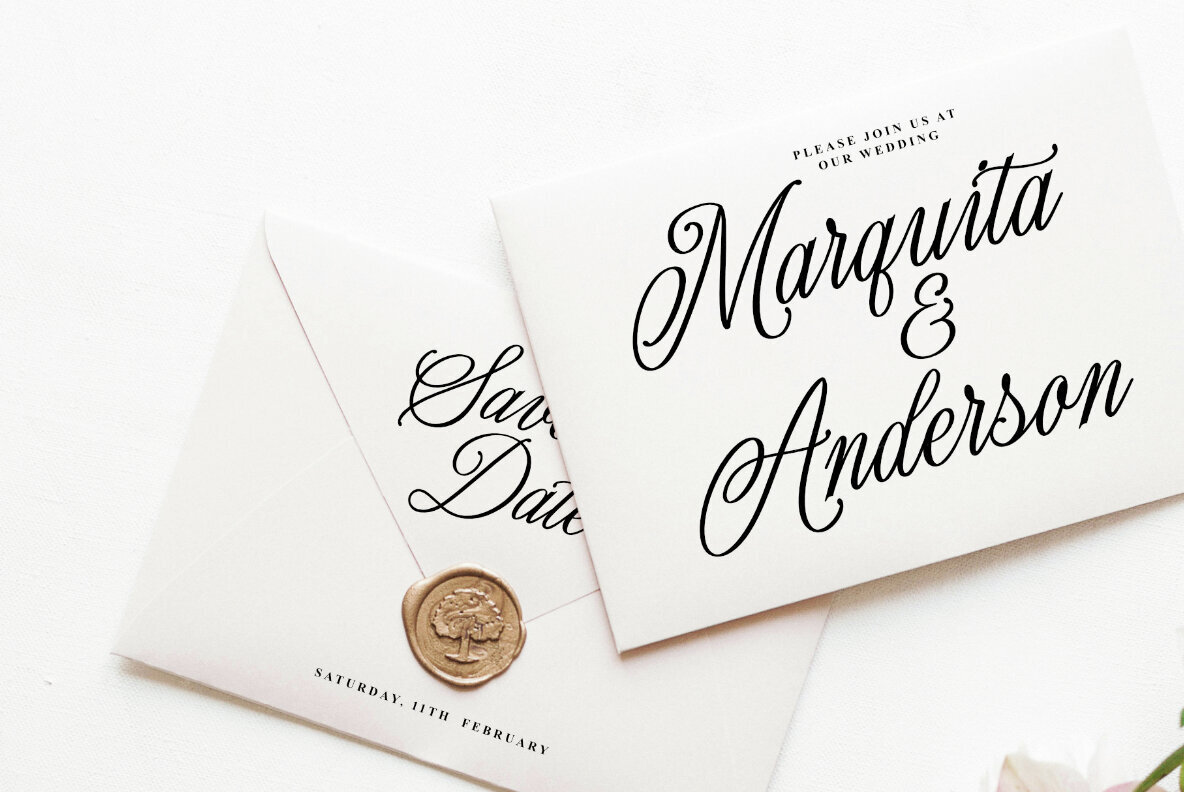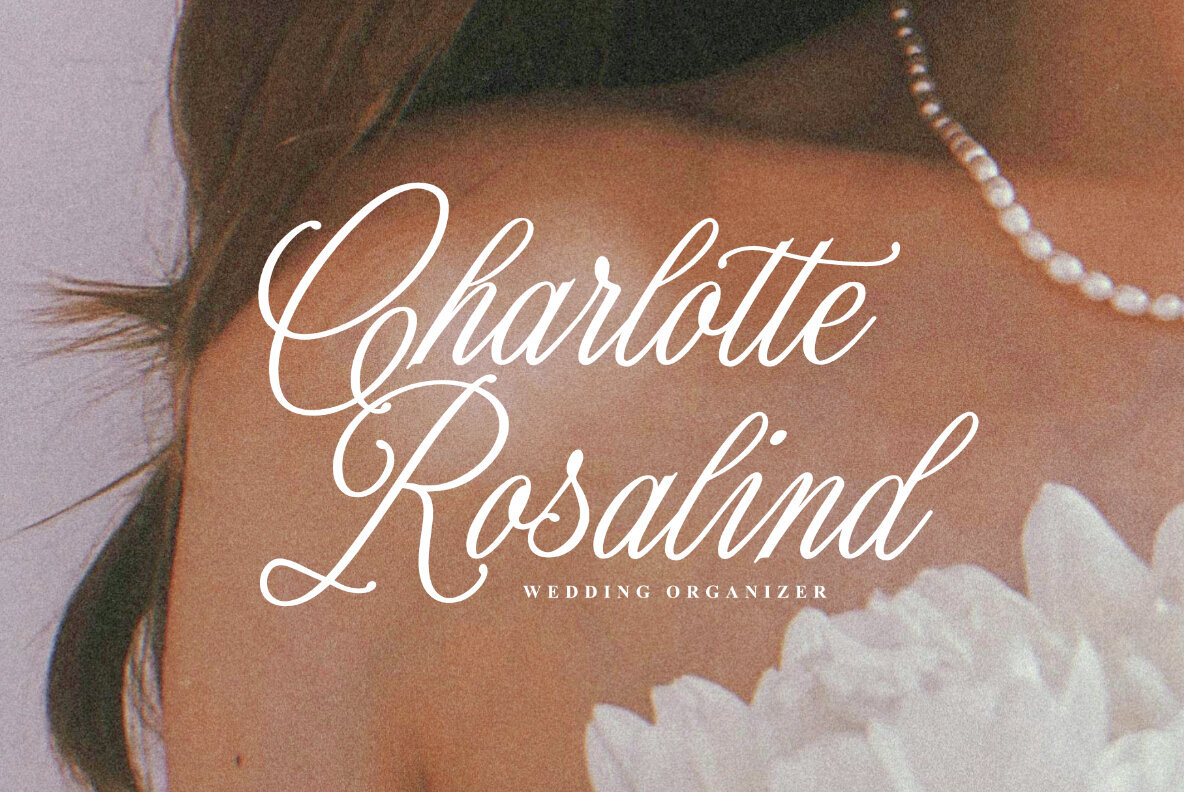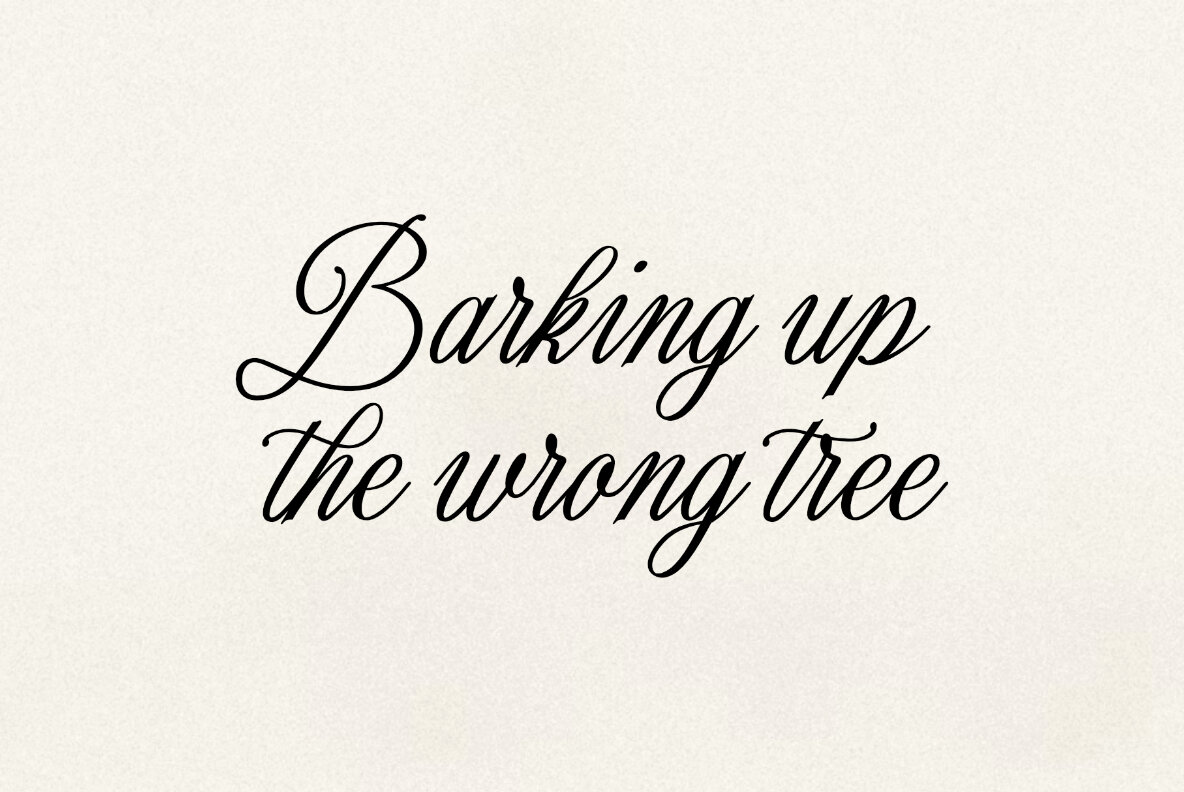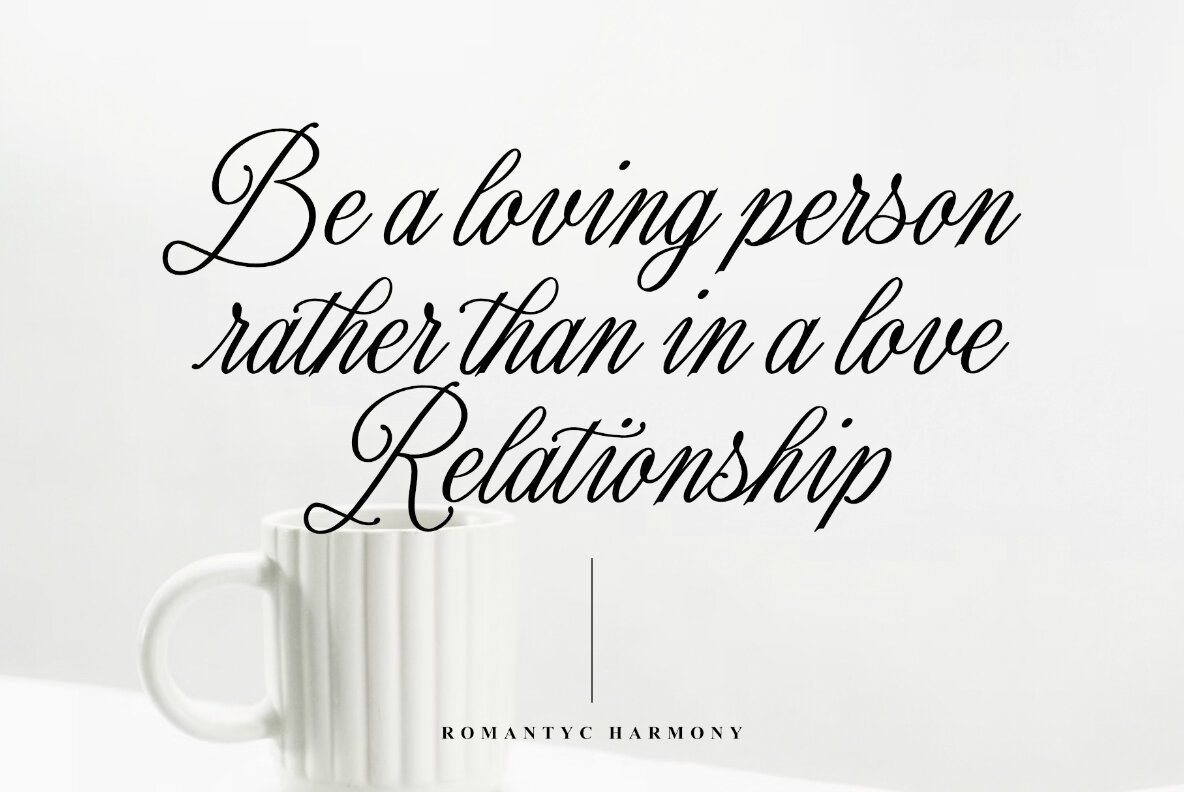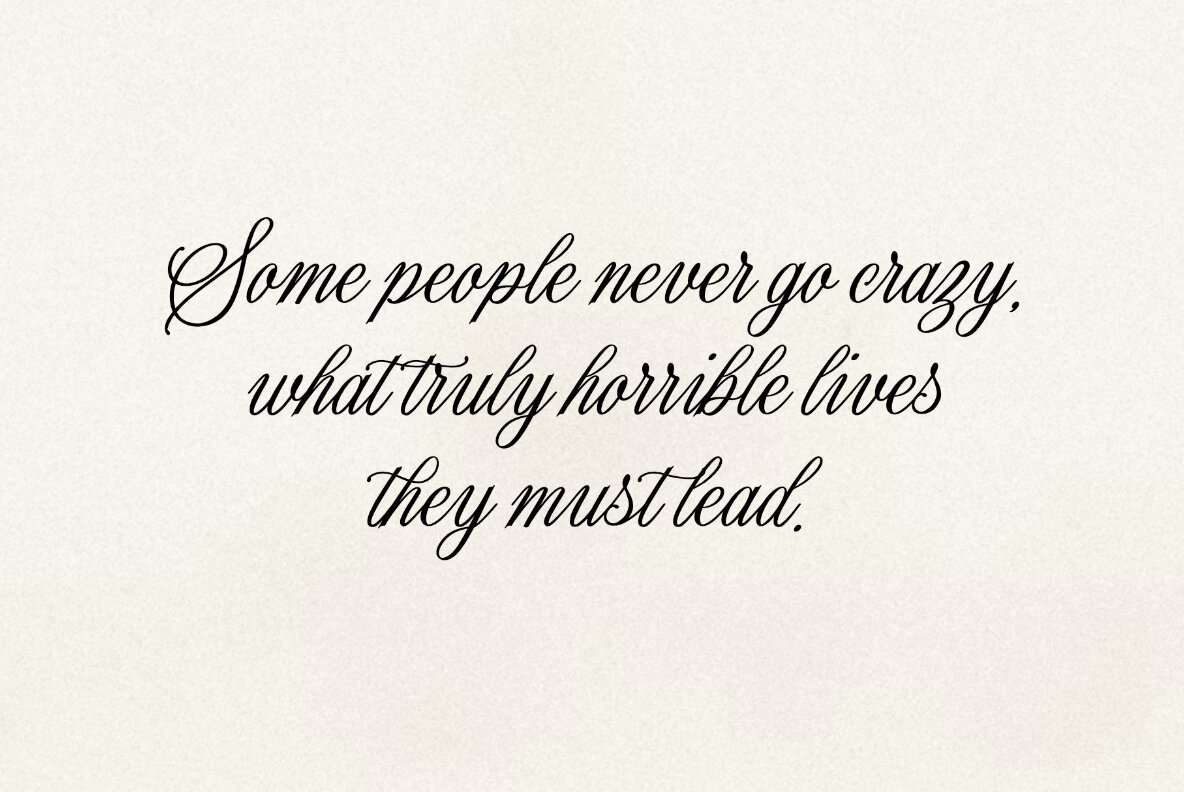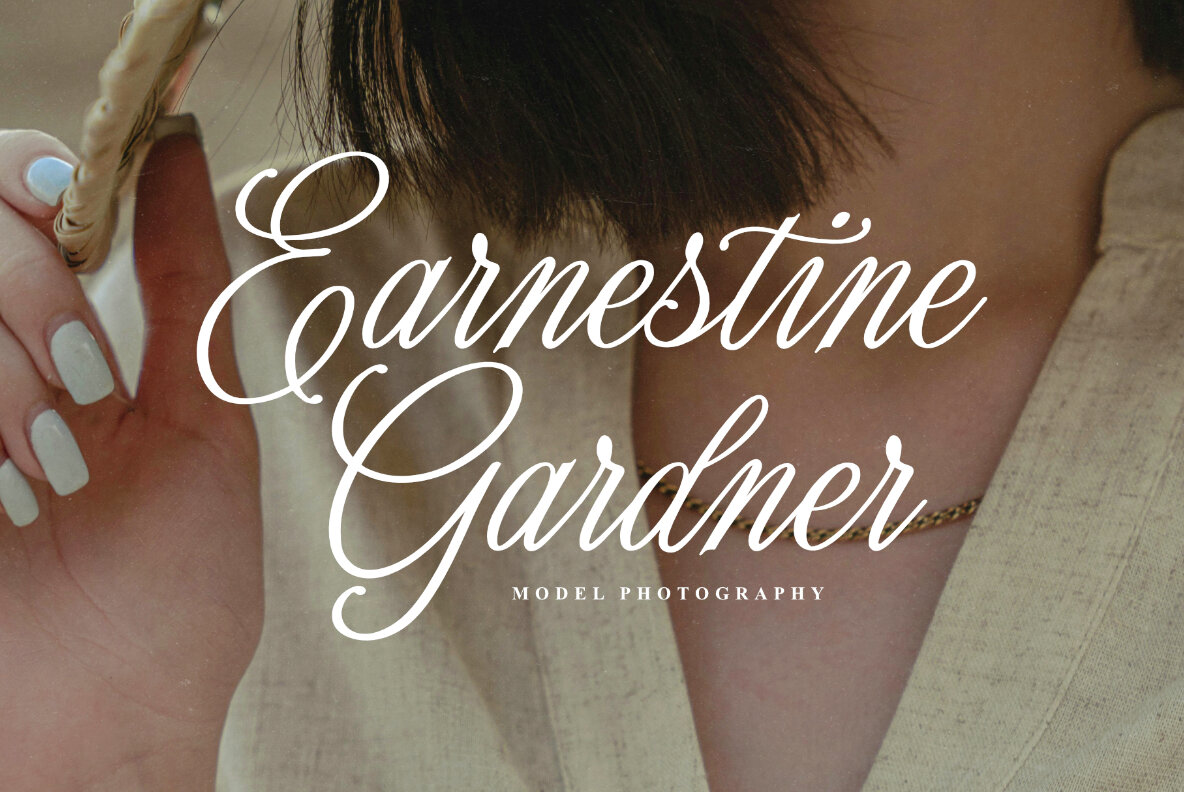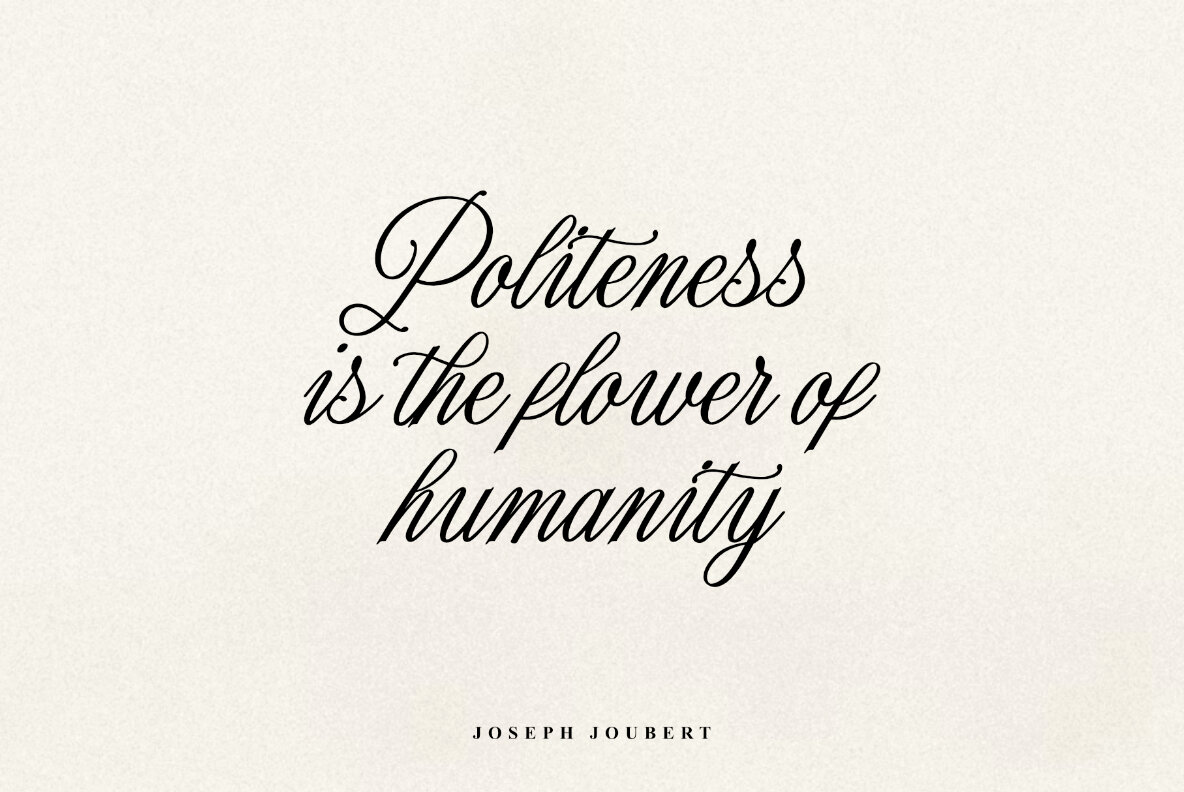
Romantyc Harmony Font
Romantyc Harmony Regular
Romantyc Harmony is a stunning copperplate calligraphy script typeface that captures elegance and timeless beauty. Featuring delicate strokes and refined curves, it exemplifies classic calligraphic style, making it ideal for projects requiring sophistication and charm.
Whether enhancing luxurious wedding invitations or upscale branding, Romantyc Harmony brings romance and refinement to your designs. Its graceful lines and exquisite detail make it a perfect choice for those looking to add a touch of elegance to their creative projects.